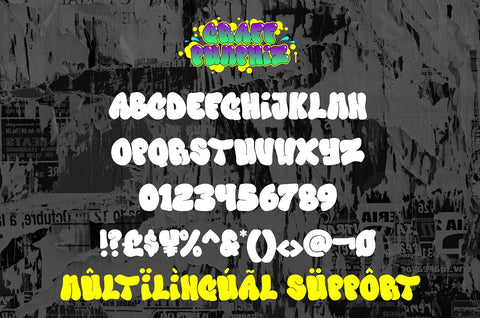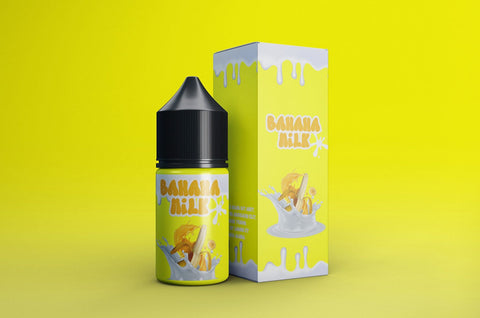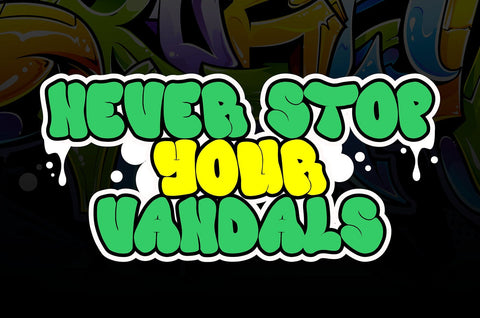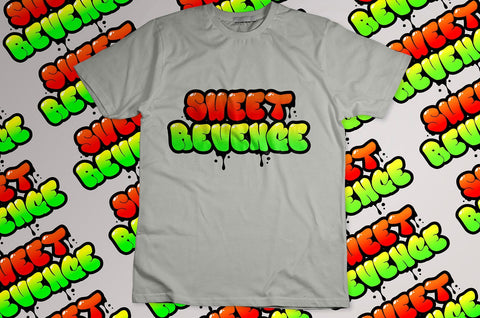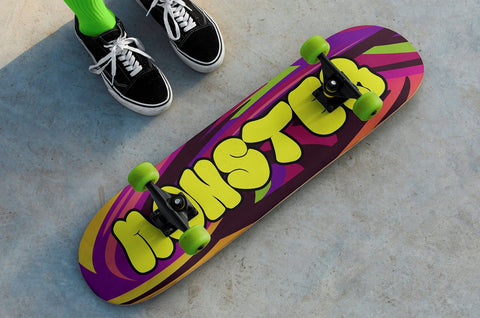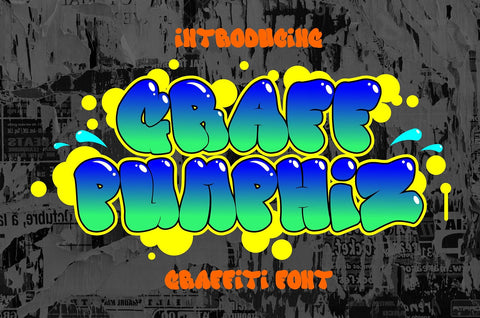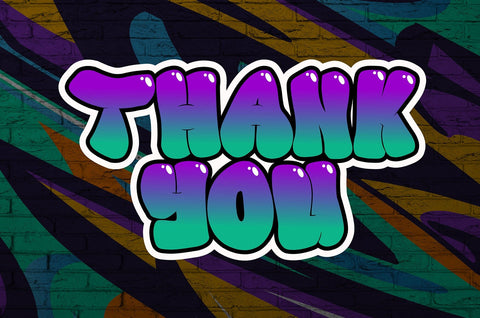
Graff Pumphiz - Bubble Graffiti font
"Graff Pumphiz" is an urban graffiti font characterized by Bubble edges and a bold look. Ideal for music posters, apparel designs, shirts, and streetwear, this font brings a touch of edginess to your projects. The unique style of "Graff Pumphiz" makes it the perfect choice any urban graffiti themes. Whether you want to create a strong and powerful statement or simply add a touch of attitude to your designs "Graff Pumphiz" is the font for you.
- Graffiti Characters looks